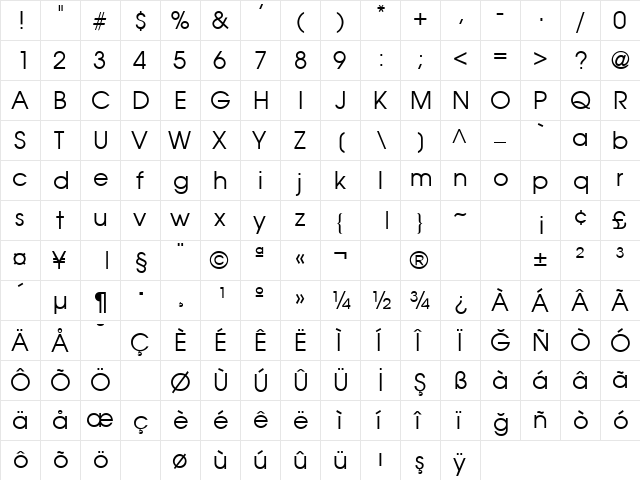
TR Avalon Plain
Design Context for TR Avalon Typeface
TR Avalon is a composed and adaptable typeface that performs quietly and consistently across a wide range of design contexts.